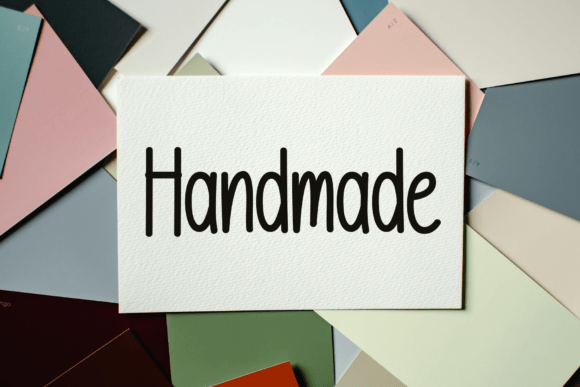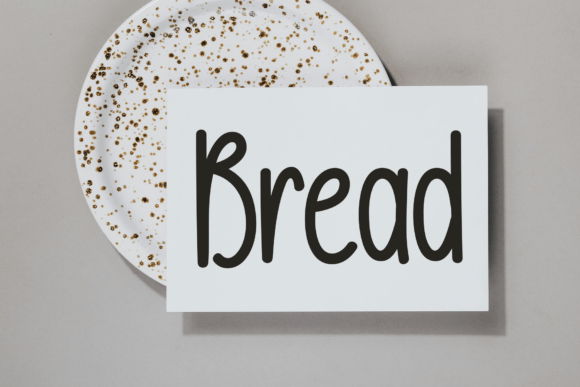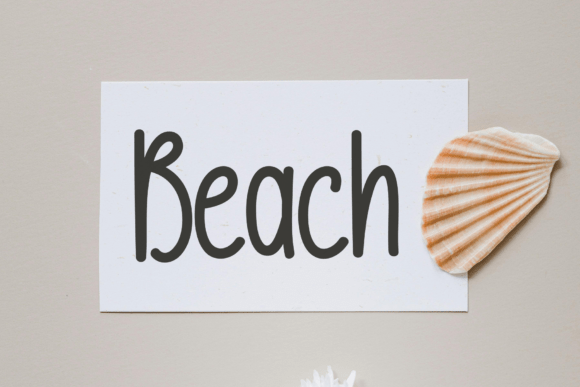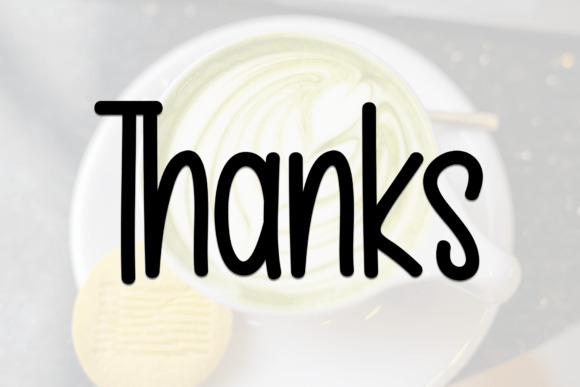
Introducing Greentea Font: The Perfect Blend of Relaxed and Luxurious
Are you on the hunt for a font that exudes a sense of casual elegance and sophistication? Look no further than Greentea Font, a beautiful handwritten font that is sure to elevate your designs to the next level. With its unique marker-drawn aesthetic, Greentea Font is perfect for designers and crafters looking to add a touch of relaxed luxury to their work.
The Characteristics of Greentea Font
Greentea Font is a handwritten font that boasts a sporty and relaxed feel, making it an excellent choice for a wide range of design applications. Its marker-drawn appearance gives it a distinctive, organic look that is both modern and stylish. Whether you’re working on a branding project, creating wedding supplies, or designing greeting cards, Greentea Font is sure to bring a touch of elegance and sophistication to your work.
What Makes Greentea Font So Versatile?
One of the things that sets Greentea Font apart from other fonts is its incredible versatility. With its unique blend of casual and luxurious qualities, Greentea Font can be used in a wide range of design contexts, including:
- Branding: Use Greentea Font to create a memorable and stylish brand identity that sets your business apart from the competition.
- Logos: Greentea Font’s marker-drawn aesthetic makes it perfect for creating eye-catching logos that are both modern and sophisticated.
- Wedding Supplies: Add a touch of elegance and whimsy to your wedding designs with Greentea Font, perfect for invitations, programs, and more.
- Greeting Cards: Use Greentea Font to create beautiful, one-of-a-kind greeting cards that are sure to impress.
- Fashion: Greentea Font’s sporty, relaxed feel makes it perfect for fashion designs, including lookbooks, catalogs, and more.
- Marketing Promotions: Use Greentea Font to create eye-catching marketing materials that are both stylish and effective.
Why Choose Greentea Font?
So why choose Greentea Font over other fonts? Here are just a few reasons why Greentea Font is a top choice for designers and crafters:
- Unique Aesthetic: Greentea Font’s marker-drawn aesthetic sets it apart from other fonts, giving your designs a distinctive and stylish look.
- Versatility: Greentea Font can be used in a wide range of design contexts, making it a great addition to any designer’s toolkit.
- Elegant and Casual: Greentea Font strikes the perfect balance between elegance and casualness, making it perfect for designers who want to create luxurious designs that are still approachable and relaxed.
Tips for Using Greentea Font
Here are a few tips for getting the most out of Greentea Font:
- Experiment with Colors: Greentea Font looks great in a wide range of colors, so don’t be afraid to experiment and find the perfect hue for your design.
- Pair with Other Fonts: Greentea Font pairs well with a wide range of other fonts, so try combining it with other fonts to create a unique and stylish look.
- Use for Headlines and Body Text: Greentea Font is perfect for both headlines and body text, making it a great choice for designs that require a lot of text.
In conclusion, Greentea Font is a beautiful and versatile handwritten font that is perfect for designers and crafters looking to add a touch of relaxed luxury to their work. With its unique marker-drawn aesthetic and incredible versatility, Greentea Font is sure to become a staple in any designer’s toolkit. So why wait? Download Greentea Font today and start creating stunning designs that are sure to impress!